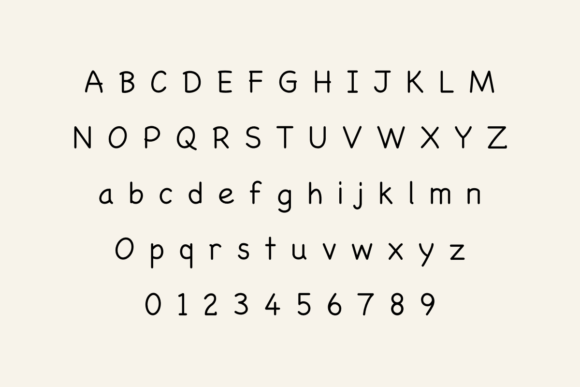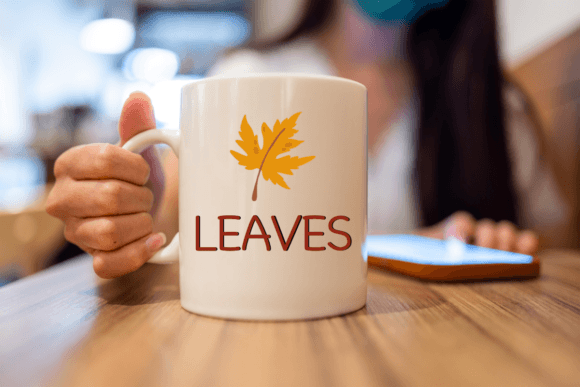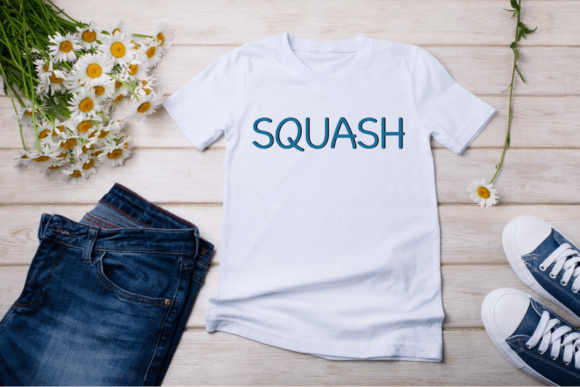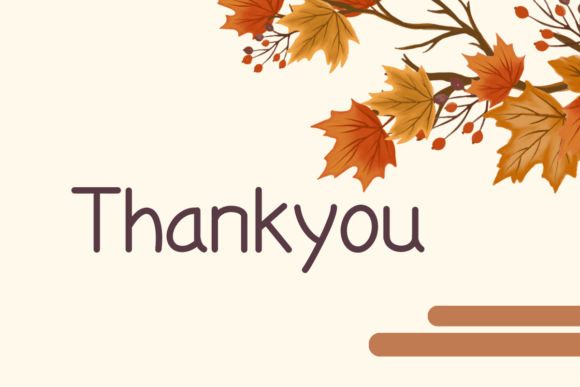
Embracing the Cozy Vibes of Autumn: A Handwritten Font for Creative Expression
As designers, we’ve all been there – stuck on a project, searching for the perfect font to bring our vision to life. I recall working on a autumn-themed greeting card design, wanting a font that felt warm, inviting, and personal. That’s when I stumbled upon Autumn, a beautiful handwritten font that quickly became my go-to for a range of creative projects.
A Personal Review of Autumn Font
So, what makes Autumn font so special? Let’s dive into the good stuff! 🤩
- ✨ Warm and inviting: Autumn font has a cozy feel that’s perfect for autumn-themed designs, but also works well for everyday projects.
- ✅ Versatile: Use it for taking notes, writing a diary, making greeting cards, or creating social media posts.
- 🎨 Highly customizable: With OpenType features and stylistic alternates, you can experiment with different looks to suit your design.
While Autumn font is amazing, there are a few things to keep in mind:
- ⚠️ Limited character set: As a handwritten font, it might not have all the characters or symbols you need for very specific projects.
- 🤔 Legibility at small sizes: Like many script fonts, Autumn may not be as legible at very small sizes, so be mindful of font size when using it.
The Story Behind Autumn Font
While the origins of Autumn font are shrouded in mystery, it’s easy to imagine a designer inspired by the warm, golden hues of fall creating this beautiful handwritten font. Perhaps they wanted to capture the feeling of writing in a journal on a crisp autumn day.
| Is Autumn font suitable for body text? | While Autumn font is beautiful, its legibility at smaller sizes might make it better suited for headings or short paragraphs. |
Autumn font is a versatile and beautiful addition to any designer’s toolkit. Its warm, inviting feel makes it perfect for a wide range of projects, from greeting cards to social media posts. With its OpenType features and stylistic alternates, you can experiment with different looks to suit your design. So go ahead, give Autumn font a try, and see how it can bring a touch of autumn magic to your designs! 🌟